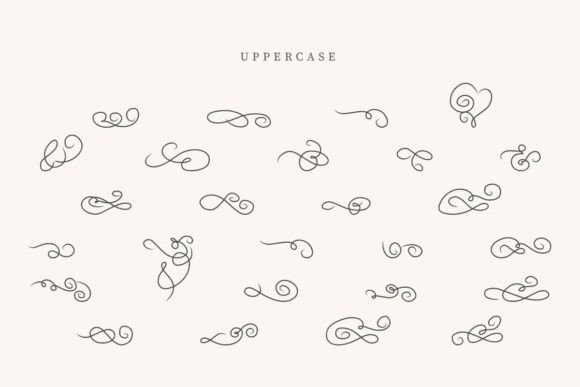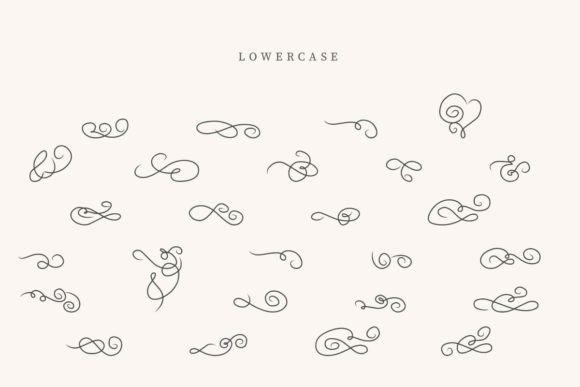
Introduction to Graduation Swirls Font
Introducing ‘Graduation Swirls,’ a delightfully refined font that breathes life into your design with its vintage swirl ornament dingbats.
Perfect for embellishing crafts and sparking your creative endeavors, this font adds a touch of timeless elegance to any decoration project Offering an extra edge for your designs, Graduation Swirls lets your creativity flow with its stunning ornamental swirls.
Key Features of Graduation Swirls Font
Why Choose Graduation Swirls Font?
Graduation Swirls Font offers exceptional quality and versatility, making it a valuable addition to your design toolkit. Whether you’re creating for personal projects or commercial use, Graduation Swirls Font delivers professional results.